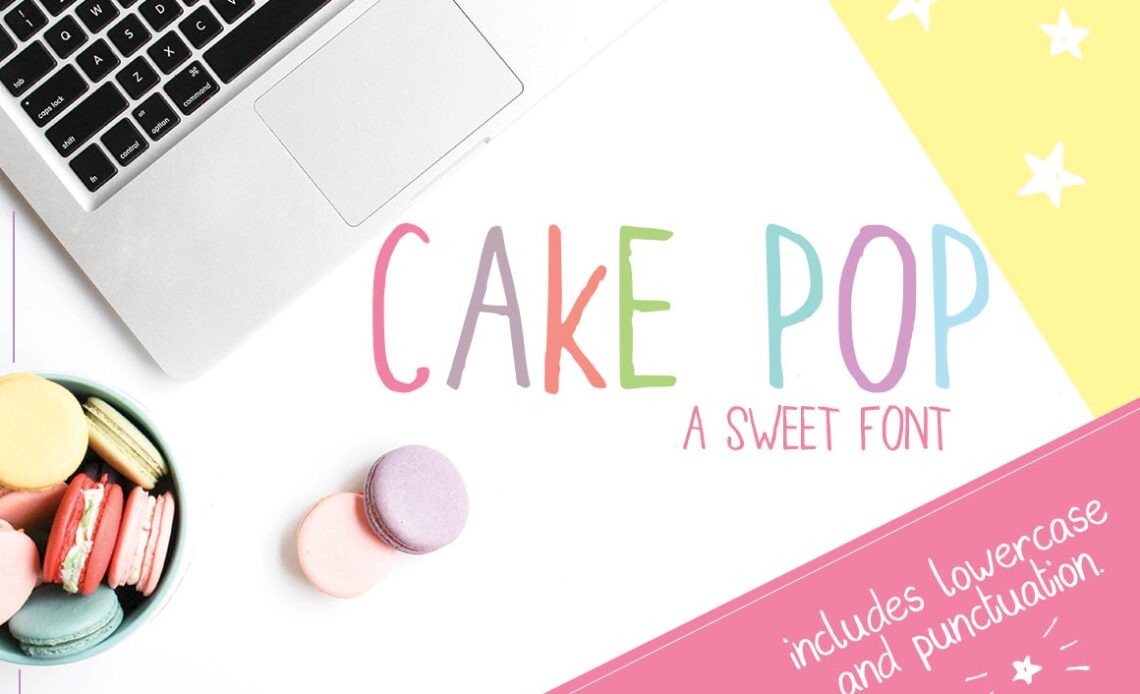
Introducing Cake Pop Font - A Sweet Treat for Your Design Cravings!
Immerse yourself in a world of whimsical charm and sugary delight with Cake Pop Font, a delectable flavor of typography that will tantalize your creative taste buds. This font is not just a collection of letters and symbols; it's a feast for the eyes, a journey into a land where imagination and aesthetics collide.
Crafted by the culinary masters at Salt and Pepper Fonts, Cake Pop Font is a sans serif wonder that dances across your screen like a sugary sprinkle on a frosted cupcake. Its playful curves and delightful details will add a touch of sweetness to any project, whether you're designing logos, website headers, invitations, or simply adding a dash of whimsy to your social media posts.
Picture this: Your logo adorned with the Cake Pop Font, exuding an irresistible charm that attracts customers like bees to honey. Your website headers, transformed into candy-colored confections that entice visitors to explore further. Imagine invitations adorned with this font, promising a celebration that's as sweet as the font itself. With Cake Pop Font, your designs will become irresistible, like a confectionary masterpiece that demands attention.
Beyond its aesthetic appeal, Cake Pop Font is a practical choice for designers of all skill levels. Its sans serif nature ensures readability, making it perfect for large blocks of text. Whether you're crafting a captivating blog post or designing an informative brochure, Cake Pop Font will deliver your message with clarity and style.